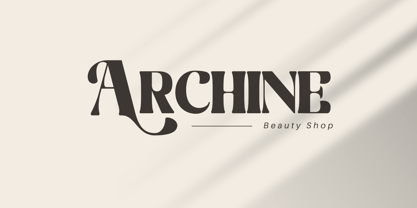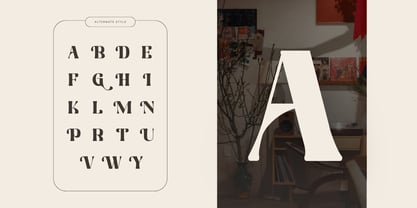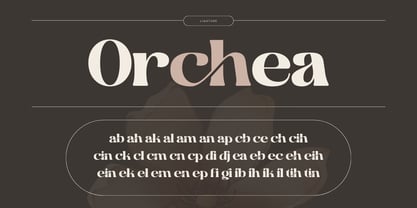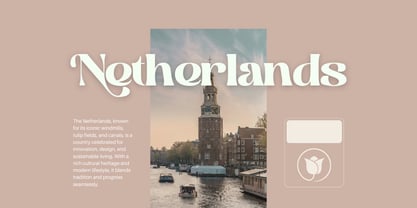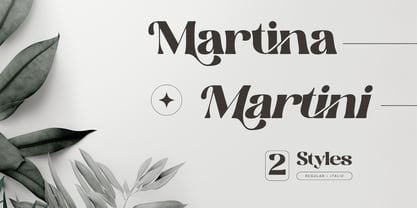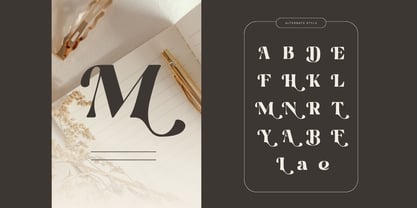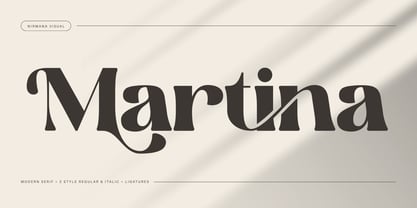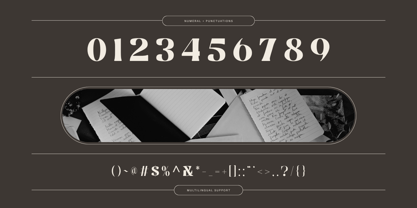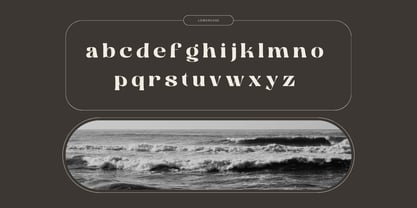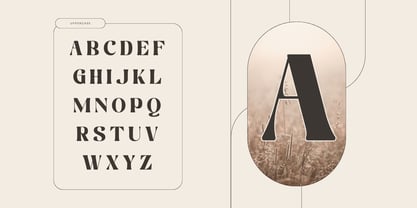
Martina Retro
The Martina Retro Font Family was designed by Sigit Dwipa and published by Nirmana Visual. Martina Retro contains 2 styles and family package options. More about this family
Martina Retro is a stylish font crafted with timeless vintage charm, perfect for elevating logos, fashion branding, packaging, and websites. Available in Regular and Italic, it blends classic elegance with modern versatility. With its rich collection of alternates and ligatures, Martina Retro offers endless creative combinations, making every design unique, bold, and memorable while maintaining a refined retro aesthetic.